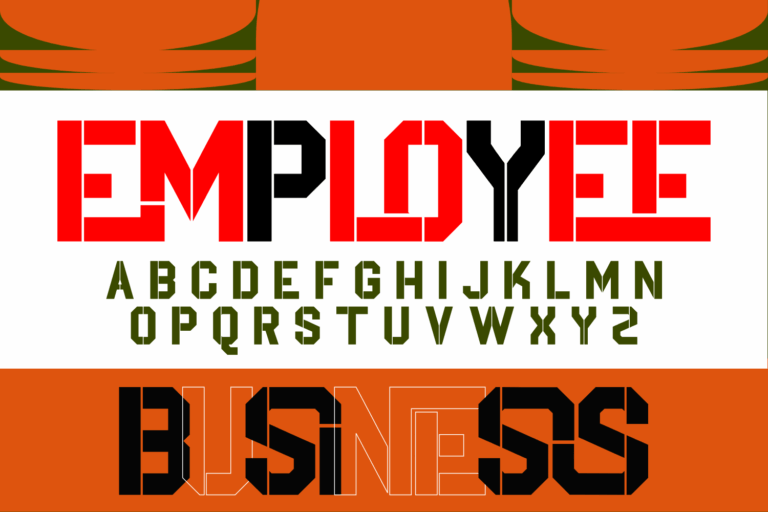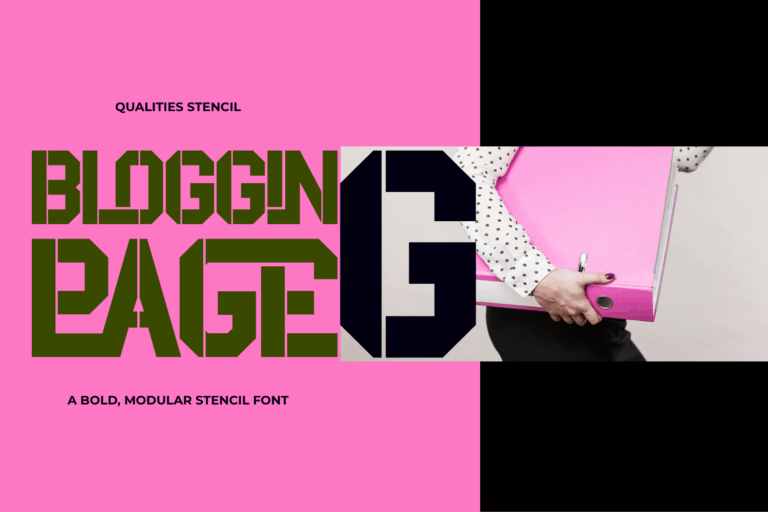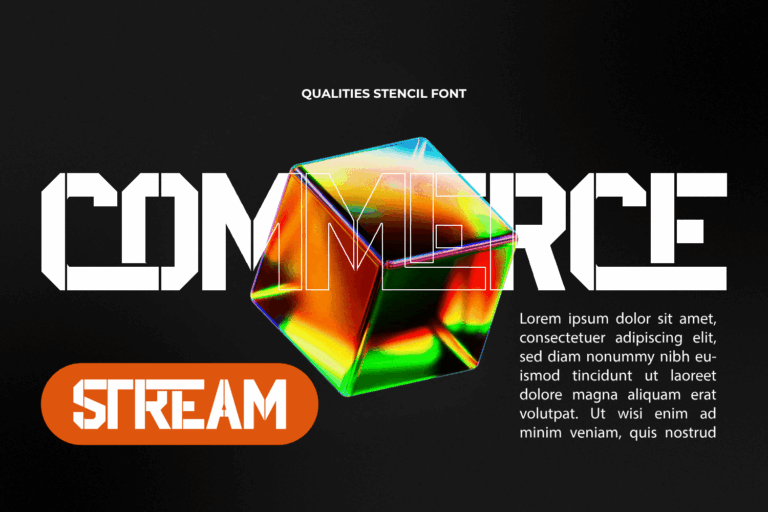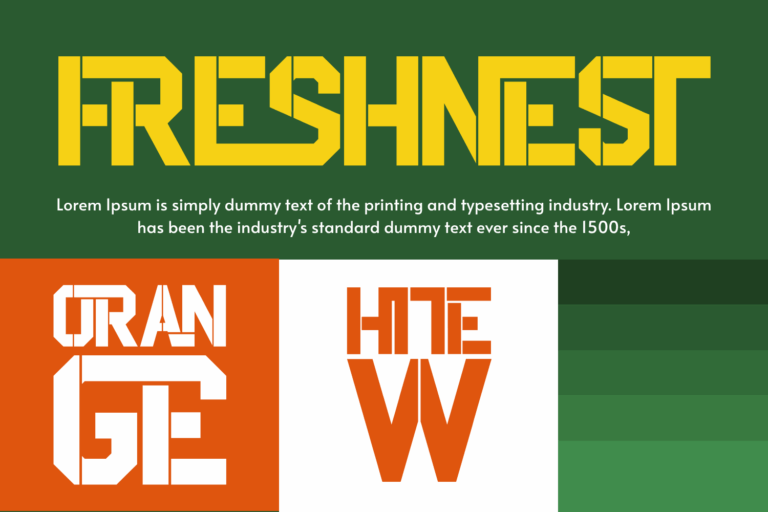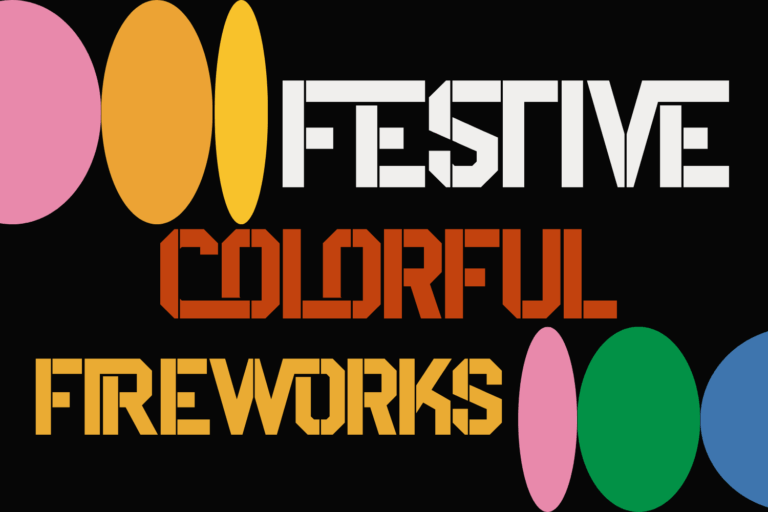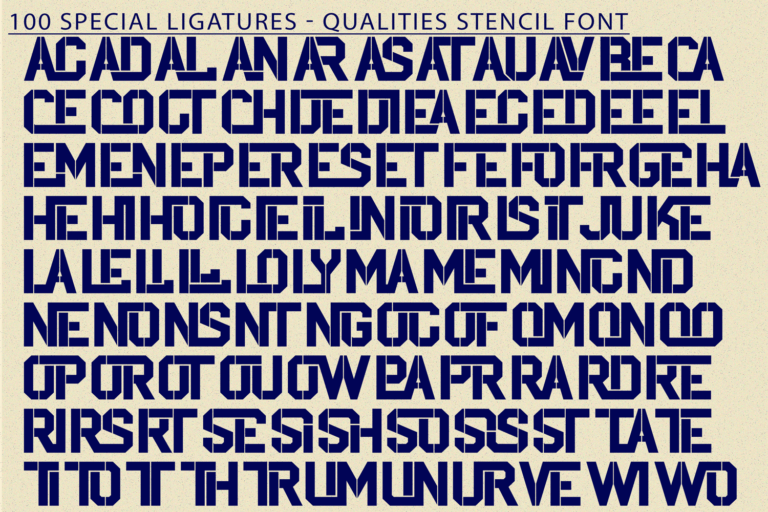
Qualities Stencil Font is a bold, geometric stencil typeface that fuses industrial strength with modern style. Featuring sharply-cut forms and modular construction, this font is designed for impactful branding, bold headlines, and standout design work. Each character is built with precision-cut strokes, balancing minimalism and power—making it ideal for editorial layouts, packaging, apparel graphics, urban posters, and futuristic signage.
🔠 Font Features:
• Uppercase Letters
• Over 100 Special Ligatures
• Multilingual Support (Accented Characters)
🔠 About 100 ligatures combined with Stylistic Alternates Font:
AC AD AL AN AR AS AT AU AV BE CA CE CH CO CT DE DI EA EC ED EE EL EM EN EP ER ES ET FE FO FR GE HA HE HI HO IE IC IL IN IO IR IS IT JU KE LA LE LI LL LO LY MA ME MI NC ND NE NG NO NT NS OC OF OM ON OO OP OR OT OU OW PA PR RA RD RE RI RO RS RT SE SH SI SO SS ST TA TE TH TI TO TR TT UM UN UR VE WI WO
Qualities Stencil Font